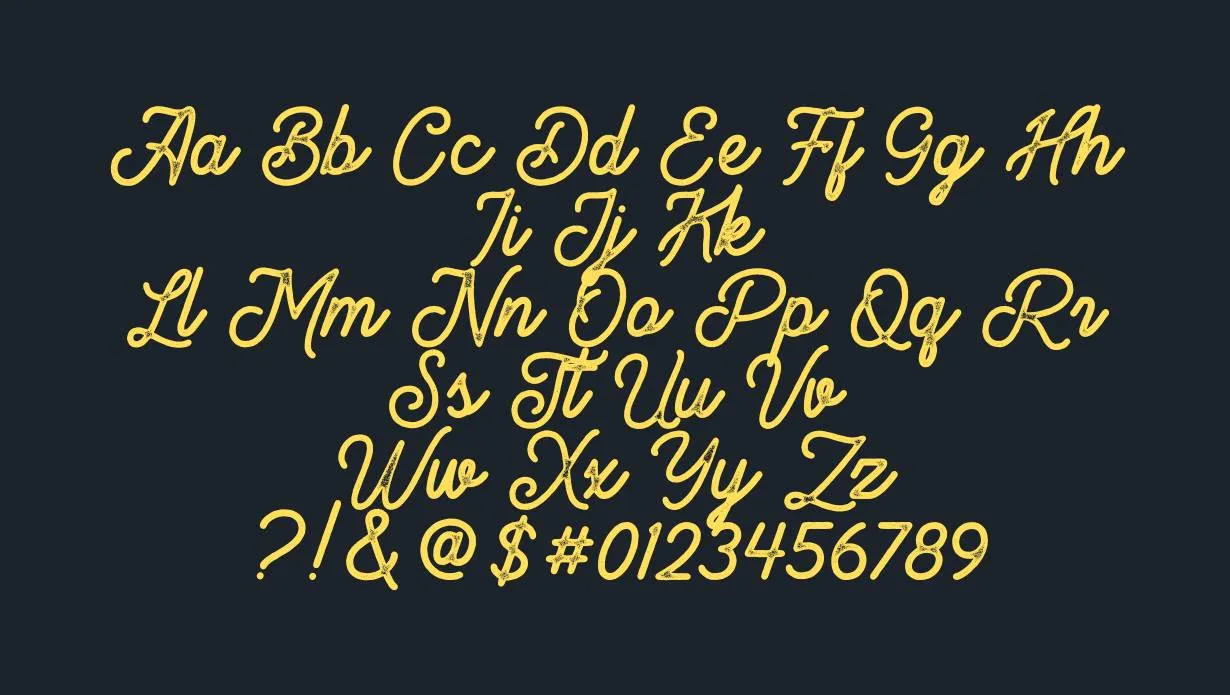
Brandon Smith Font is a unique and eye-catching typeface that gives your text a distinctive style. It belongs to the Script Fonts. It’s easily accessible in design software like Canva and Adobe Photoshop.
This font was designed by Pen Culture, a skilled font creator studio. Known for its modern and dynamic appearance, the Brandon Smith Font is ideal for various creative projects, from posters to digital artwork, helping you make your designs stand out with flair and creativity.
Brandon Smith Font Family